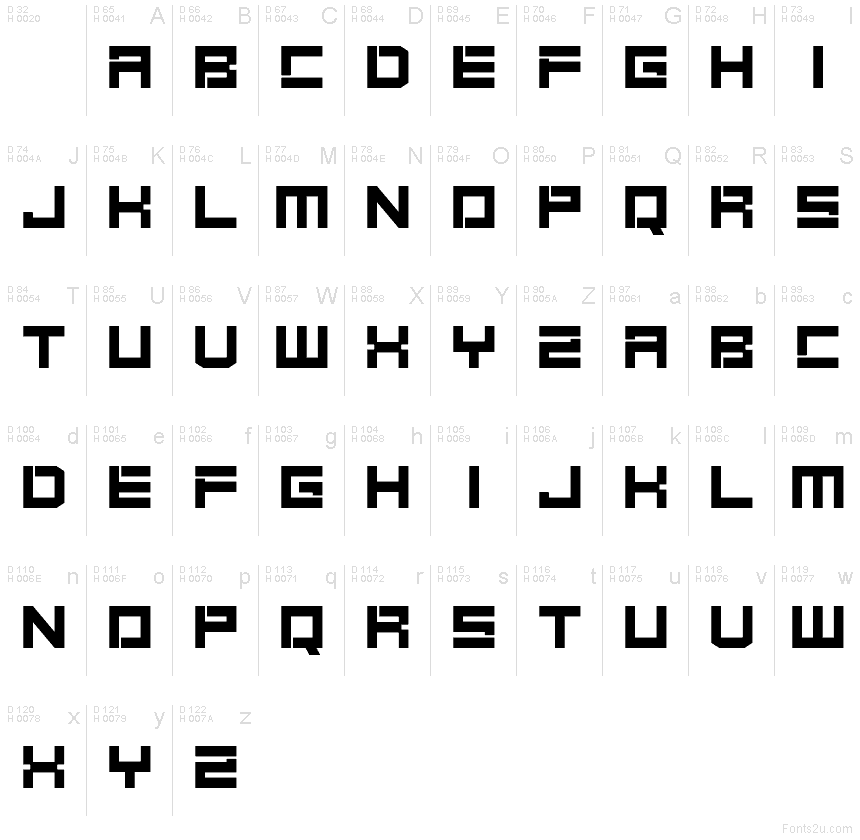
Sarno Forma Regular
Sarno Forma font by Vladimir Nikolic is a free techno display font. Built on a strict grid, its strokes snap into crisp segments with deliberate gaps that read like circuitry—bold, blocky, and ruthlessly consistent. The vertical rhythm is tight, counters stay squared, and every curve feels engineered, giving headlines a cool, machine-cut presence without getting unreadable.
Using Sarno Forma, you get instant sci‑fi credibility for game titles, esports logos, DJ flyers, tech conference branding, HUD-style UI overlays, and gadget packaging. The modular forms scale cleanly, so push it large for impact or track it slightly for sleek banners. Pair this free font with a quiet geometric sans for supporting copy, and let the grid-built letterforms carry the neon-future vibe.